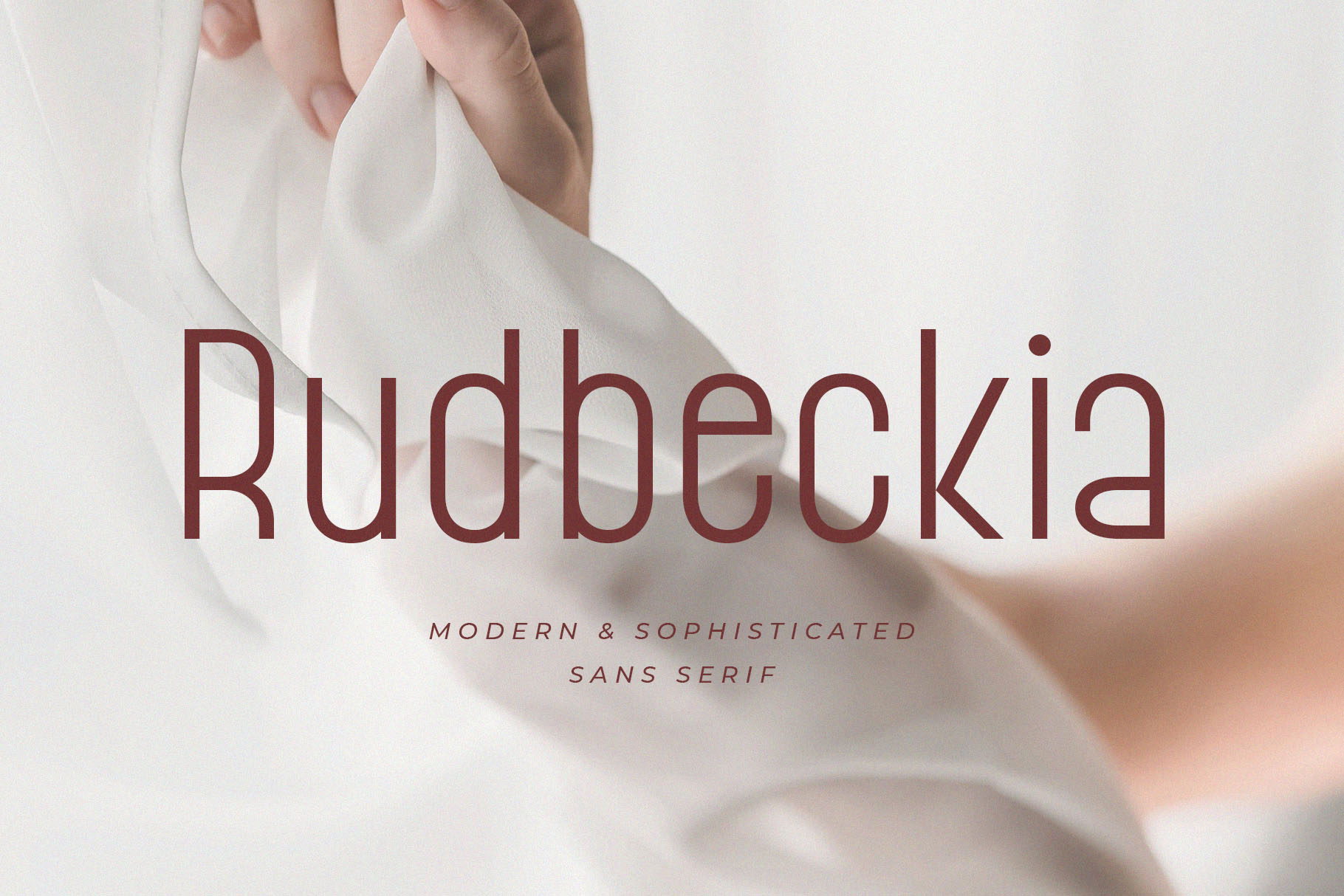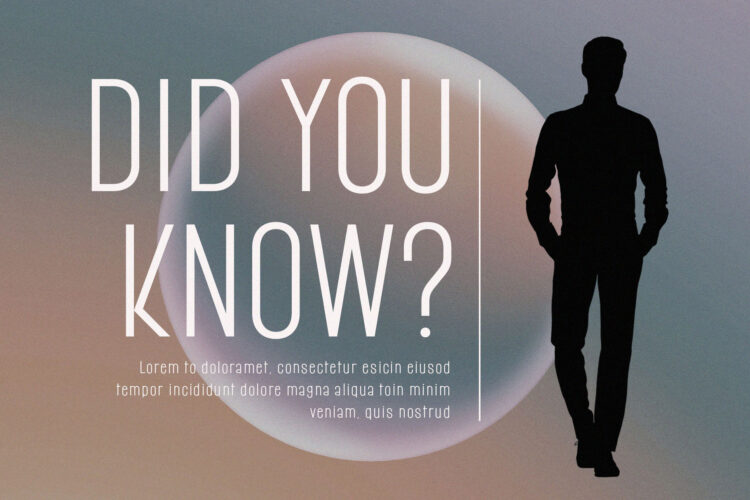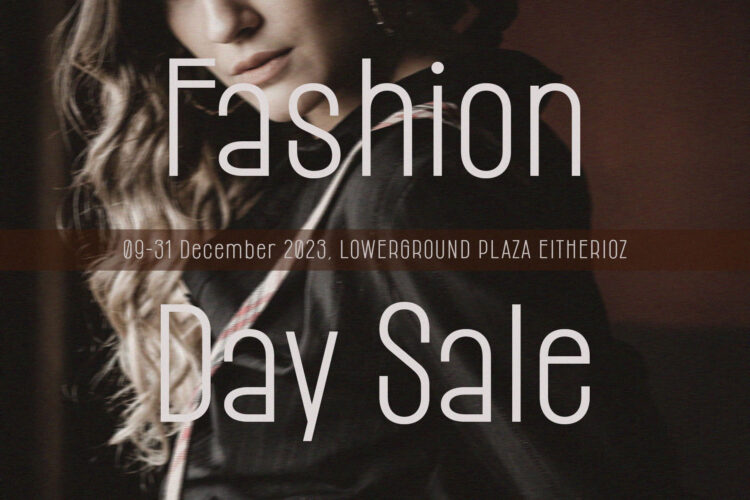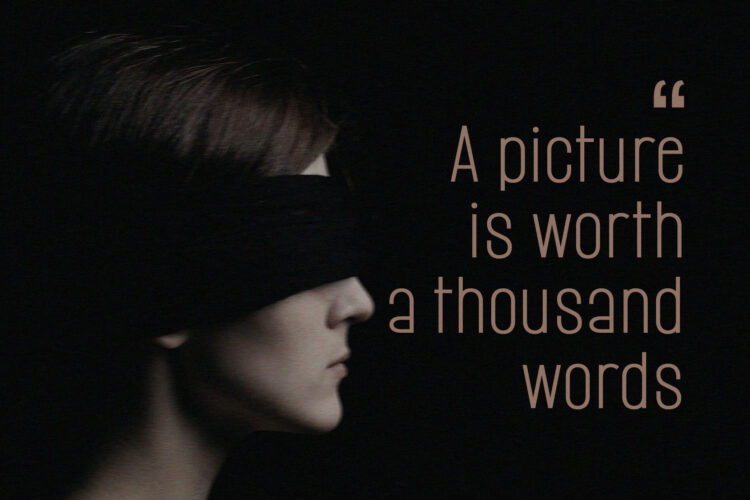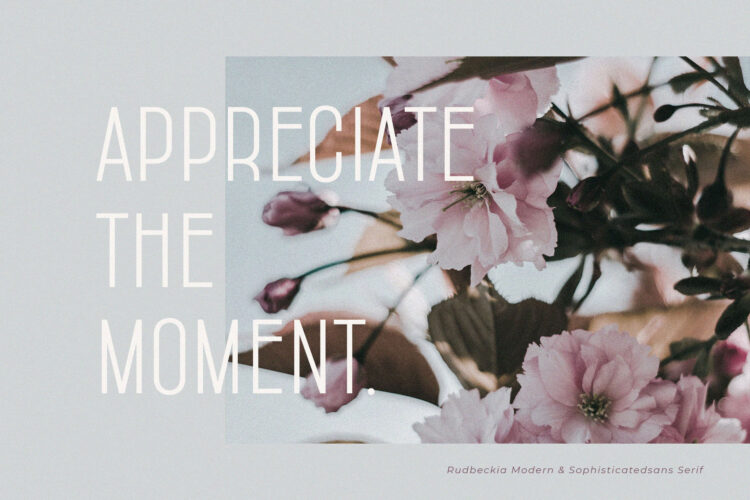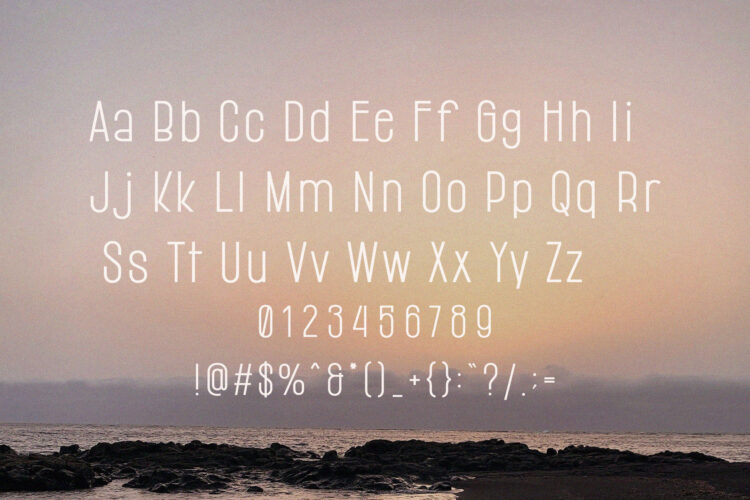
Introducing Rudbeckia Modern & Sophisticated Sans Serif.
Rudbeckia is a modern and classy typeface, best used as a display for headings, logos, branding, magazines, product packaging and invitations. Rudbeckia come with clean lines and smooth curves give any project an extra touch of class.